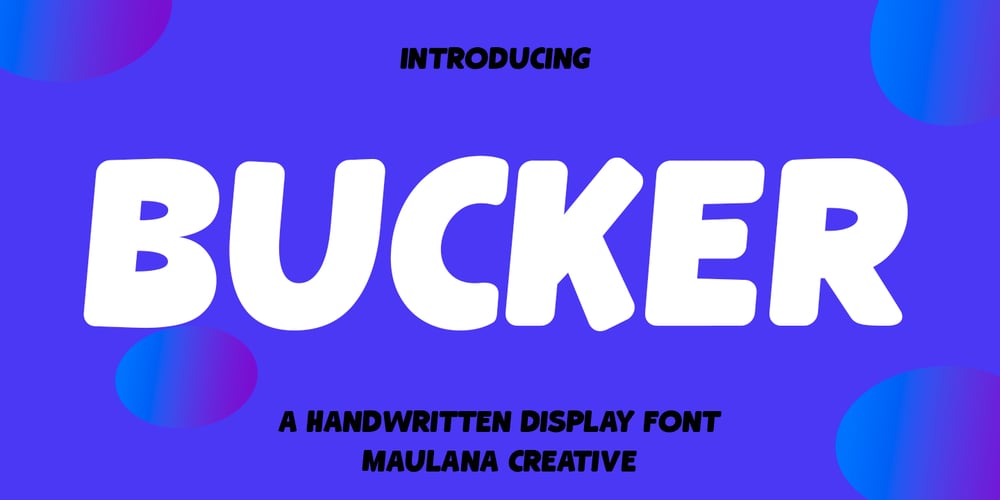
Bucker
Bucker font
Bucker Font Family was designed by Gilang Maulana and published by Maulana Creative. Bucker contains 1 styles and family package options. Bucker is a casual handwritten font. With slanted medium low contrast stroke, fun character with a bit of ligatures and alternates. To give you an extra creative work. Bucker font support multilingual more than 100+ language. This font is good for logo design, Social media, Movie Titles, Books Titles, a short text even a long text letter and good for your secondary text font with script or serif. Make a stunning work with Bucker font. Cheers, Maulana Creative